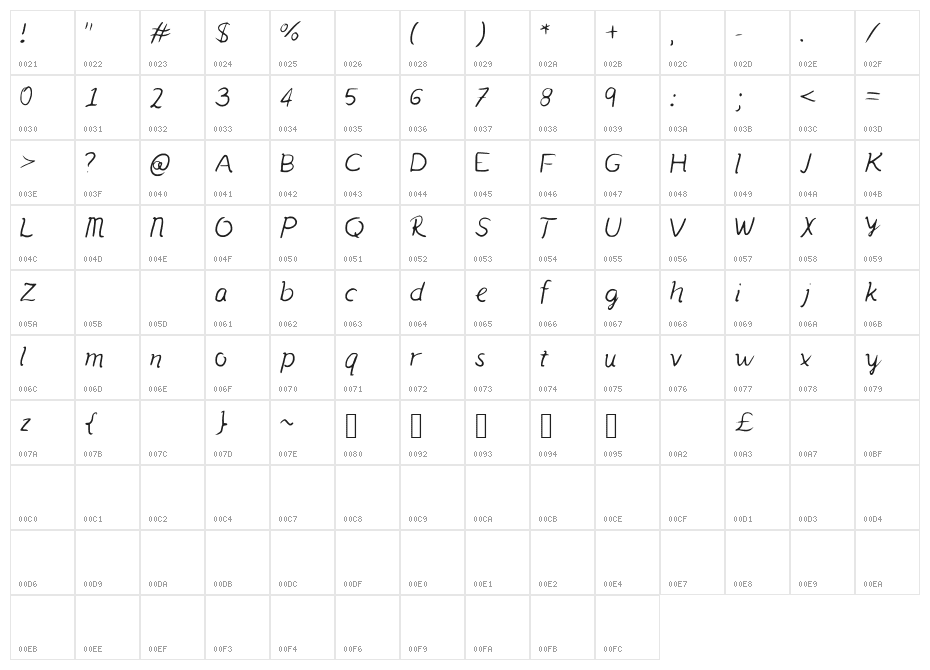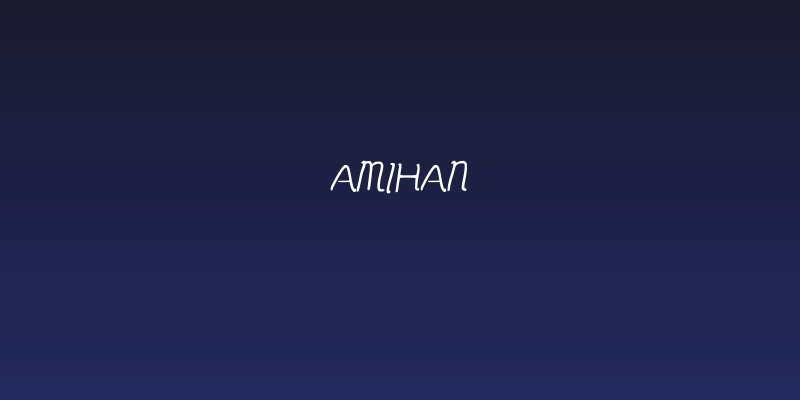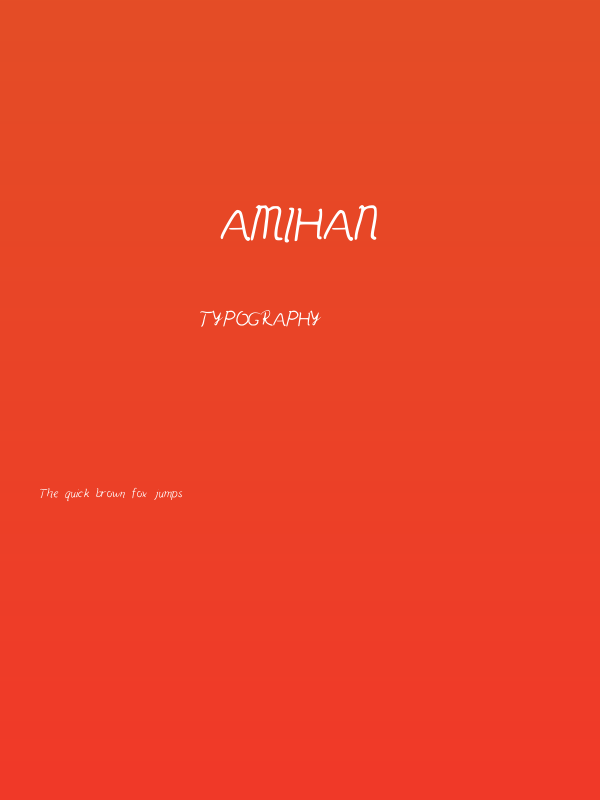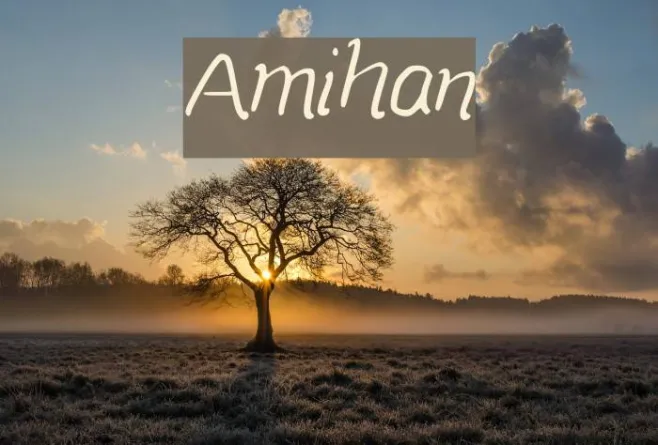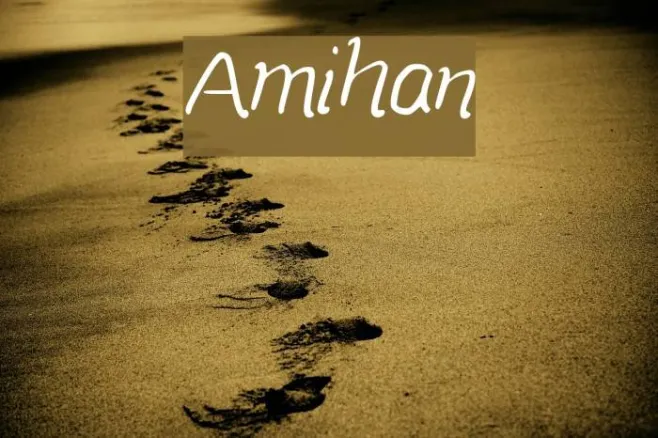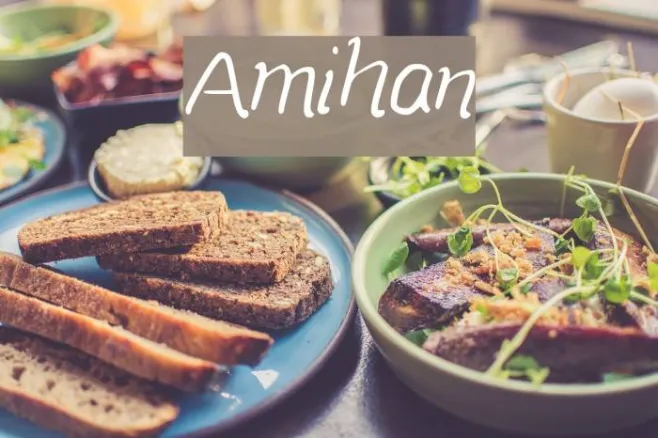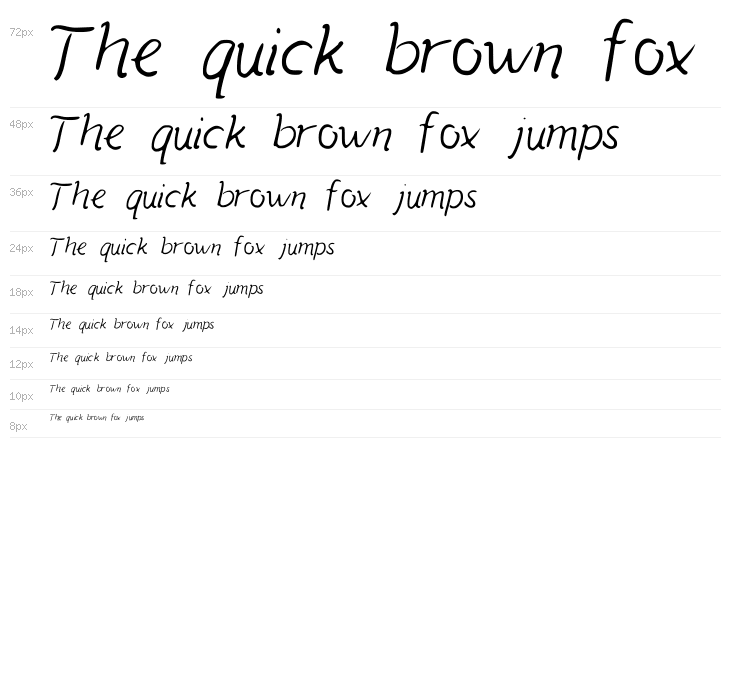
Amihan Font
Amihan Description
This font features a handwritten style with a smooth, flowing appearance. The characters are slightly slanted, giving it an informal yet elegant look. The uppercase letters are distinct and well-defined, while the lowercase letters maintain a consistent flow, enhancing readability. The numerals are clear and match the overall style, making them suitable for various applications. Special characters are included, maintaining the font's cohesive aesthetic. This font is versatile, suitable for both digital and print media, and can add a personal touch to any project.
| Proposed Projects | Ideal for invitations, greeting cards, personal branding, and creative projects needing a personal touch. |